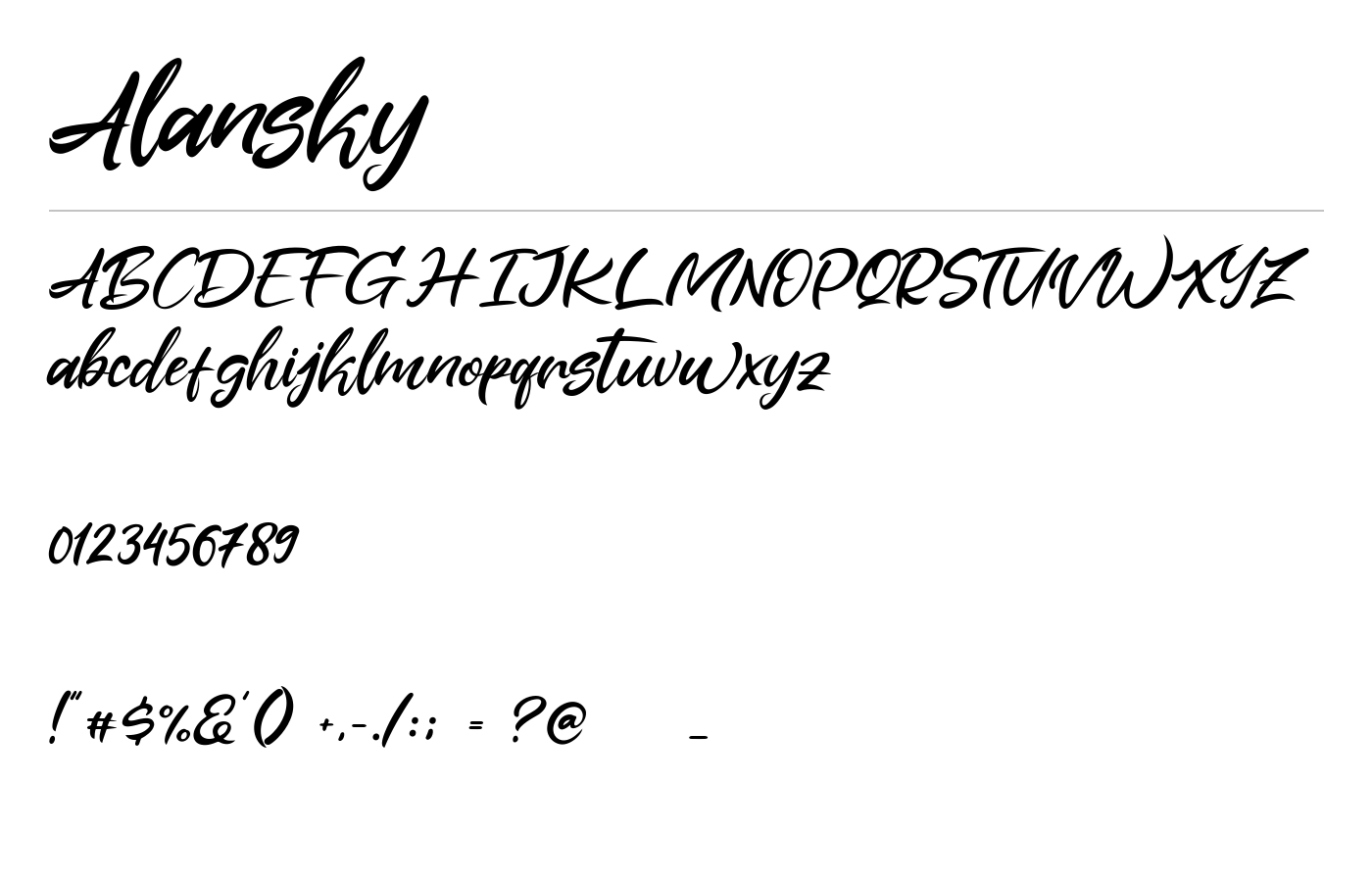
Alansky is a stylish script font that features smooth, flowing strokes with a medium weight and a natural, handwritten feel. Its elegant letterforms with high contrast and slightly condensed width make it perfect for adding a personal and sophisticated touch to branding, invitations, and headlines. This font works well in designs wanting a modern yet warm and approachable personality.
Alansky Font
About Alansky Font
| Font family | Alansky Font |